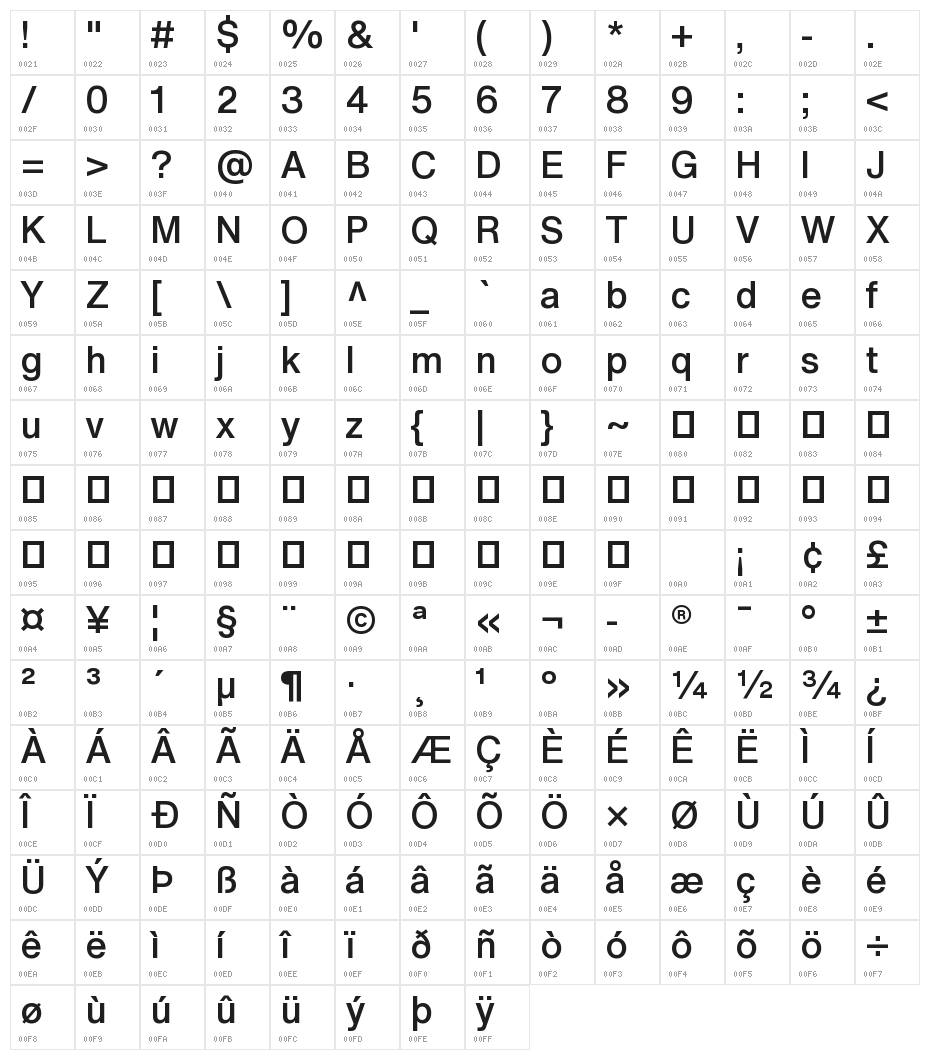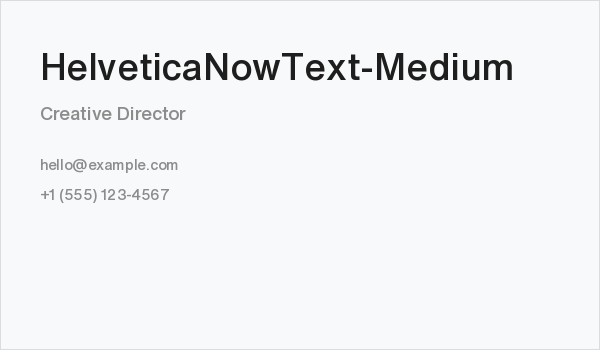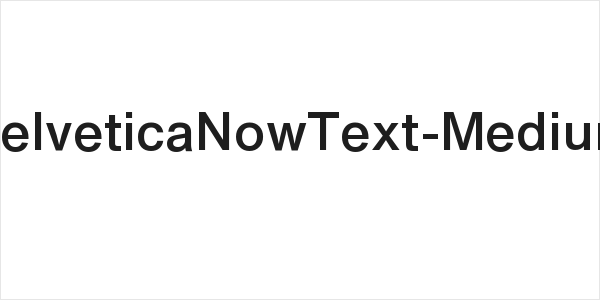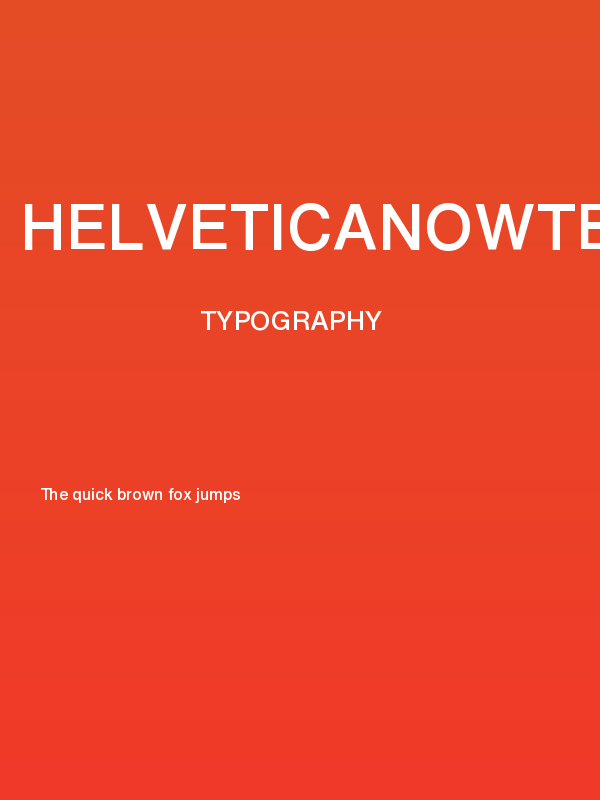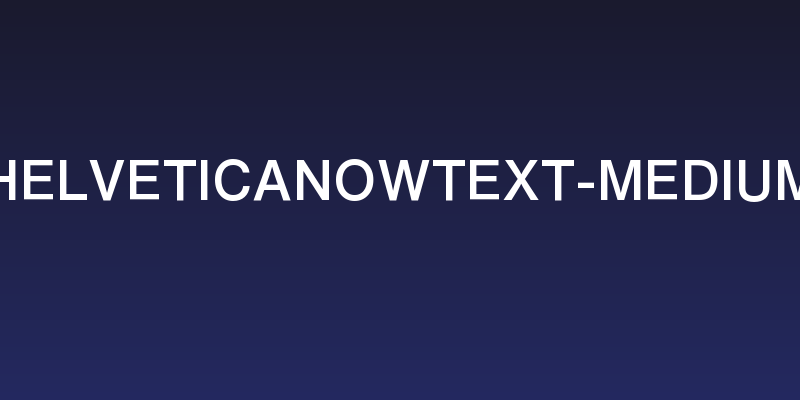
HelveticaNowText-Medium Font
HelveticaNowText-Medium Description
This font is a modern sans-serif typeface known for its clean and minimalist design. It features uniform stroke widths and a balanced structure, making it highly legible across various sizes. The characters are well-proportioned, with a harmonious blend of curves and straight lines. The uppercase letters are bold and assertive, while the lowercase letters maintain a friendly and approachable appearance. The numerals are clear and distinct, ensuring readability in both print and digital formats. Special characters are designed with precision, maintaining the overall aesthetic of simplicity and clarity.
| Proposed Projects | Ideal for branding, corporate communications, user interfaces, and editorial design. |